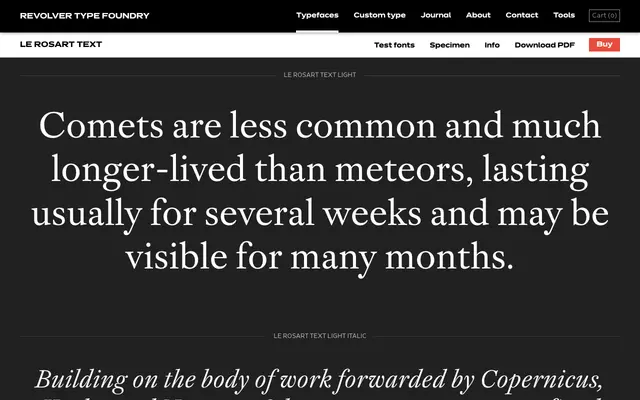
Le Rosart Text
A text serif family from Revolver Type Foundry offered in five weights, each with a matching italic, aimed at extended reading use.
Five weights from Light to Bold, each paired with an italic, give the family reasonable flexibility for editorial and book work. The Text designation suggests optical tuning for smaller sizes rather than display use. No designer credit or release year is listed on the page.
The family's naming convention and weight range with italics across all cuts points to a traditional text serif designed for extended reading, with proportions and optical tuning suited to body copy.